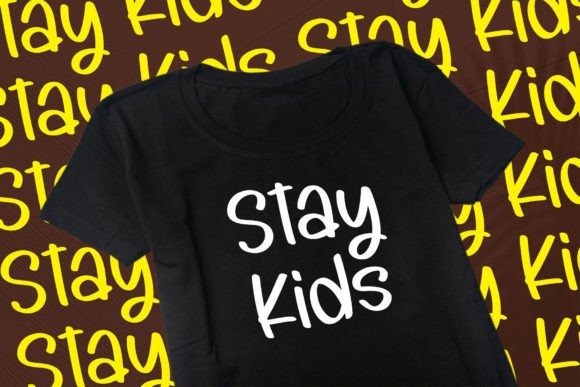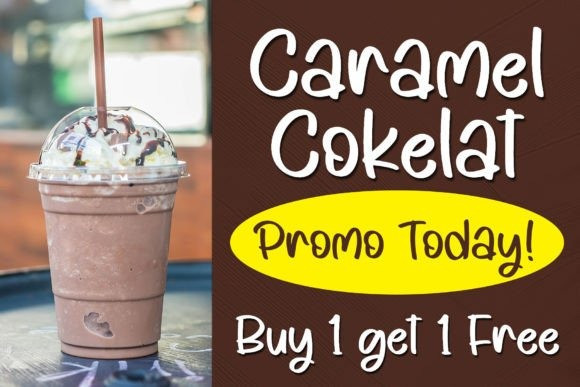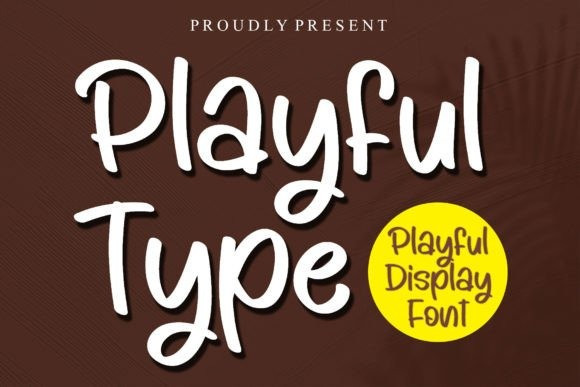
Playful Type Font
Playful Type Font This whimsical display font radiates a cheerful and lively essence, perfect for adding a splash of fun into any design. Playful Type is the embodiment of playfulness and positivity, promising to brighten up even the simplest of projects.